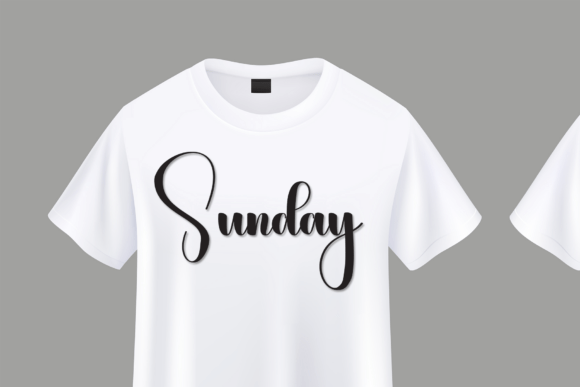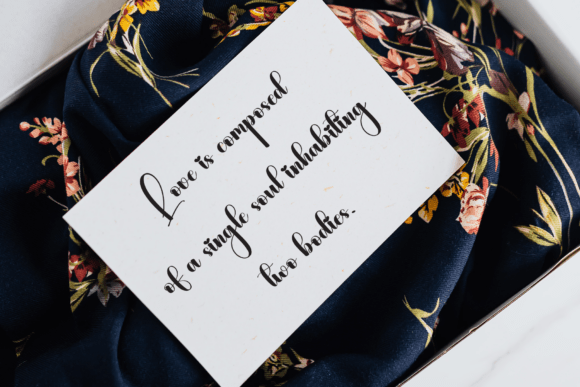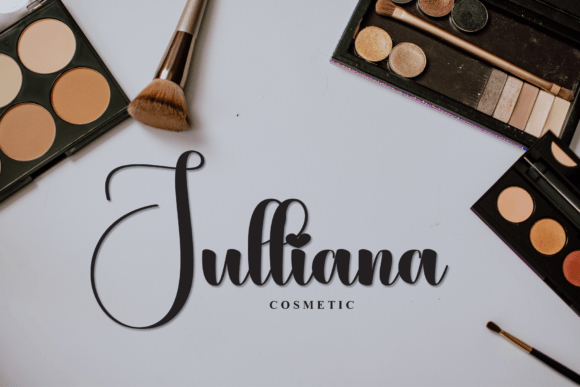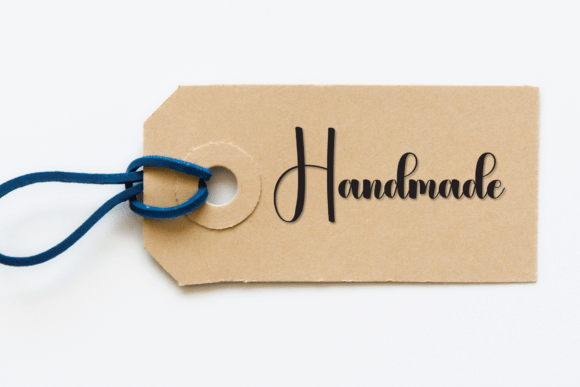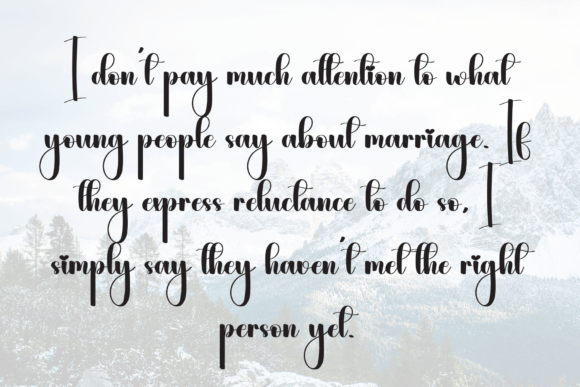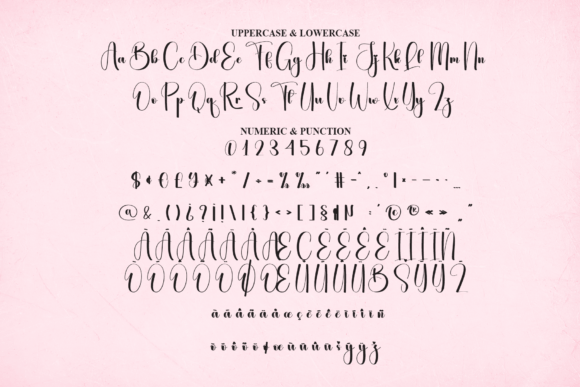
The Sweet Allure of the Barbie Font: A Design Delight
As a designer, there’s nothing quite like the thrill of brainstorming a new project, envisioning the perfect aesthetic, and finally settling on the perfect font to bring it all together. It’s in these moments of creative clarity that we stumble upon fonts like the Barbie Font, a true gem that adds a touch of whimsy to our designs.
Meet the Barbie Font, a delightful handwritten display font designed to infuse your projects with a sense of light-hearted elegance. This font is perfect for wedding invitations, expressive cards, or any design endeavor seeking a touch of fun. Its charm lies in the delicate balance between cute and whimsical, making it an invaluable asset for designers looking to add a personal touch to their work.
Key Features of Barbie Font
- Font Family: Barbie Font is a custom-designed font family, specifically created for the Barbie brand.
- Unique Characteristics: The Barbie Font features a distinctive, playful, and feminine style, with rounded shapes and elegant lines.
- Character Set: The font family includes a wide range of characters, including uppercase and lowercase letters, numbers, punctuation marks, and special characters.
Barbie Font Review
As a designer, I was excited to dive into the “Barbie Font” and see if it lives up to its iconic namesake. ✨ One of the things that stands out is its playful, cursive feel, which is reminiscent of the classic Barbie aesthetic. It’s perfect for adding a touch of whimsy to children’s books, party invitations, or even branding for a young and trendy company.
However, I did find a few limitations ⚠️. Firstly, the font can feel a bit over-the-top or even kitschy in certain contexts. It’s not the best choice for serious or professional projects, where a more straightforward font would be more suitable. Additionally, the font’s irregularities and flourishes can make it challenging to read in certain sizes or at high resolutions.
- ✨ Playful, cursive feel perfect for children’s projects
- ✨ Iconic, recognizable design
- ⚠️ May feel over-the-top or kitschy in certain contexts
- ⚠️ Can be challenging to read in certain sizes or resolutions
Overall, I’d say the “Barbie Font” is a fun and creative choice for the right projects. While it may not be the most versatile or practical font, it’s perfect for adding a touch of personality and whimsy to your designs. Just be sure to use it thoughtfully and in the right context to get the most out of it!
The Barbie Font is a playful, cursive font that is perfect for:
- Food labels and packaging.
Remember to adjust the font size and style to ensure readability and visual appeal.
Alex Brush is a elegant, handwritten script font that is perfect for creating designs that require a personal and intimate touch. It is ideal for use in designs that require a sense of warmth and personality. Alex Brush has a more delicate and refined look compared to Barbie Font, making it a great choice for designs that need to convey a sense of elegance and sophistication.